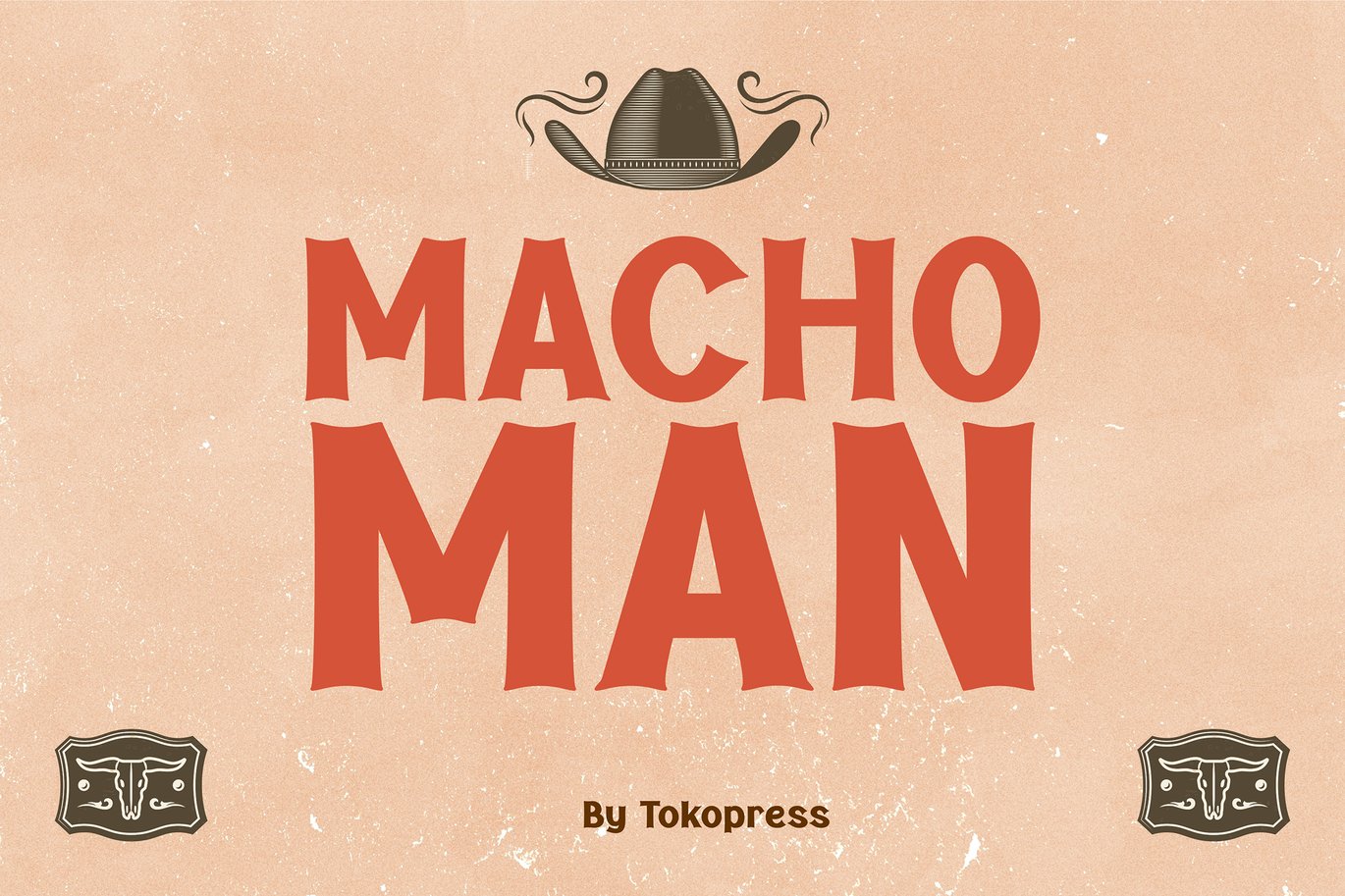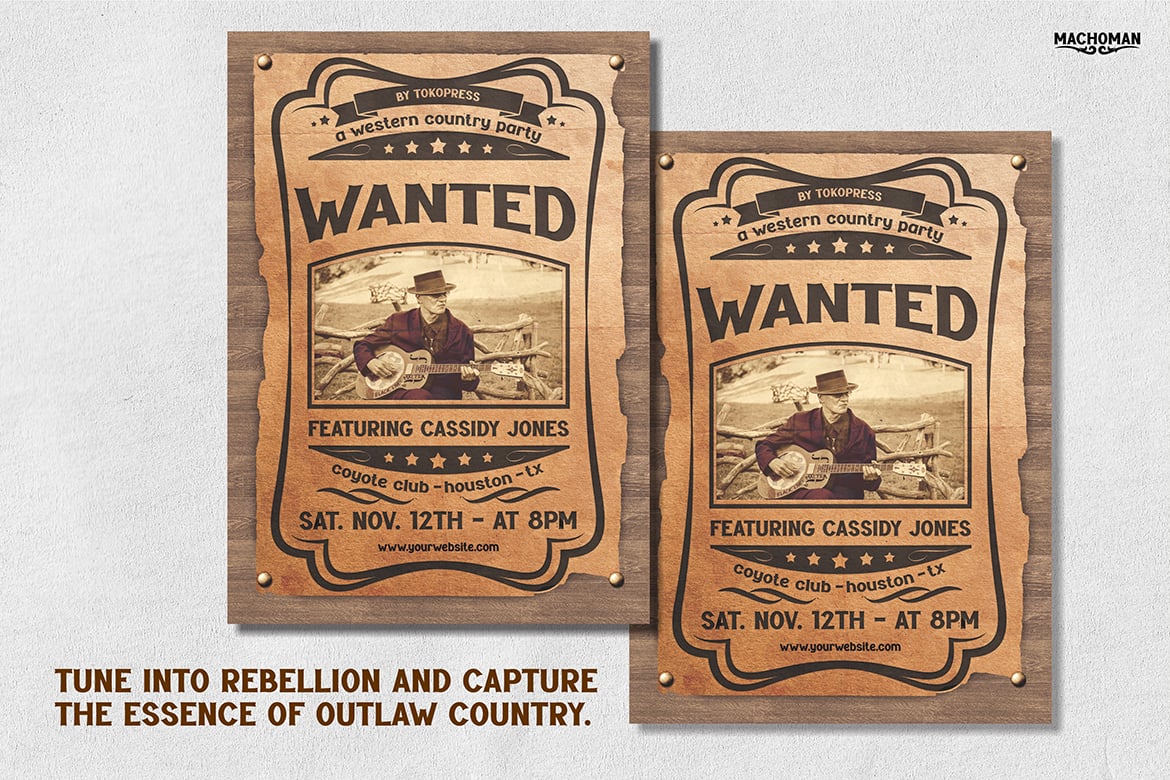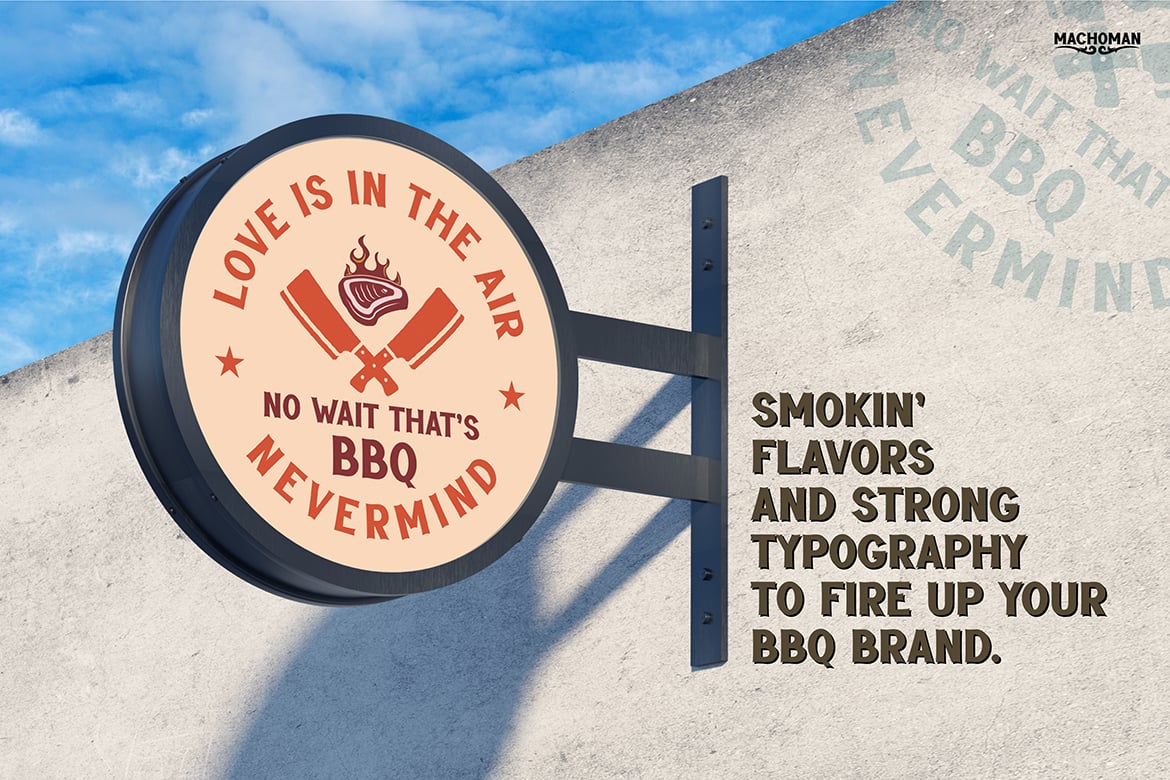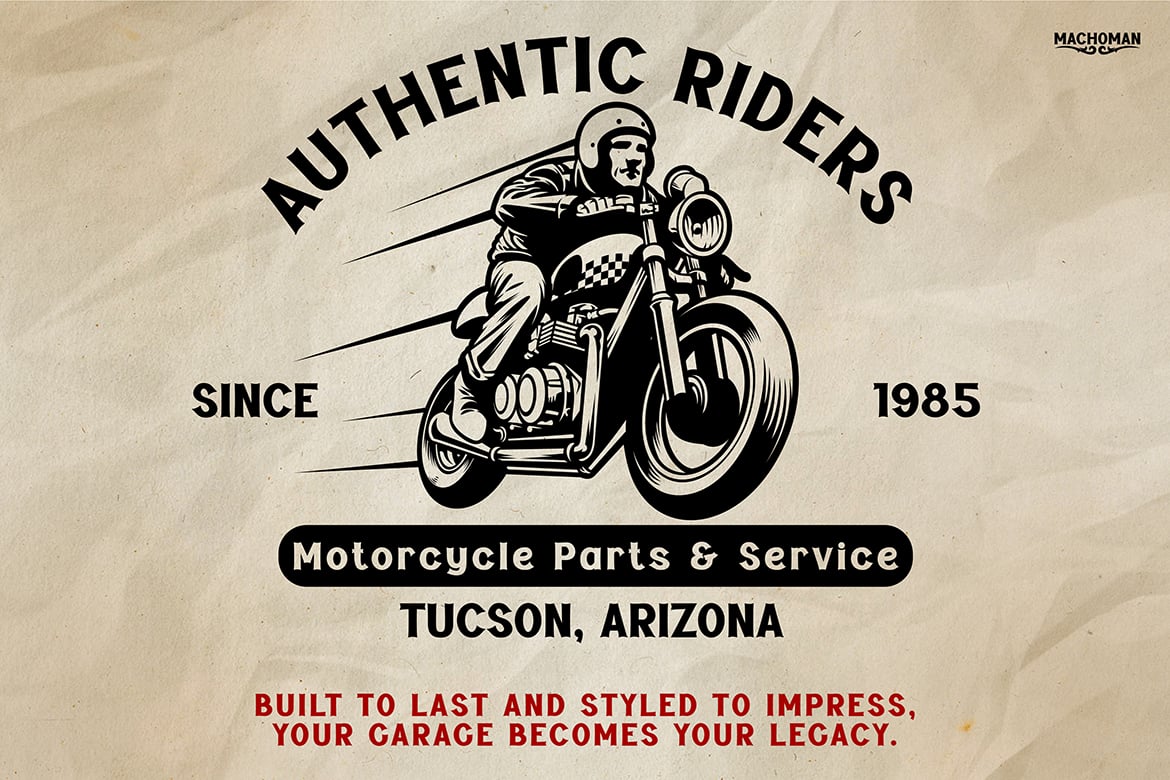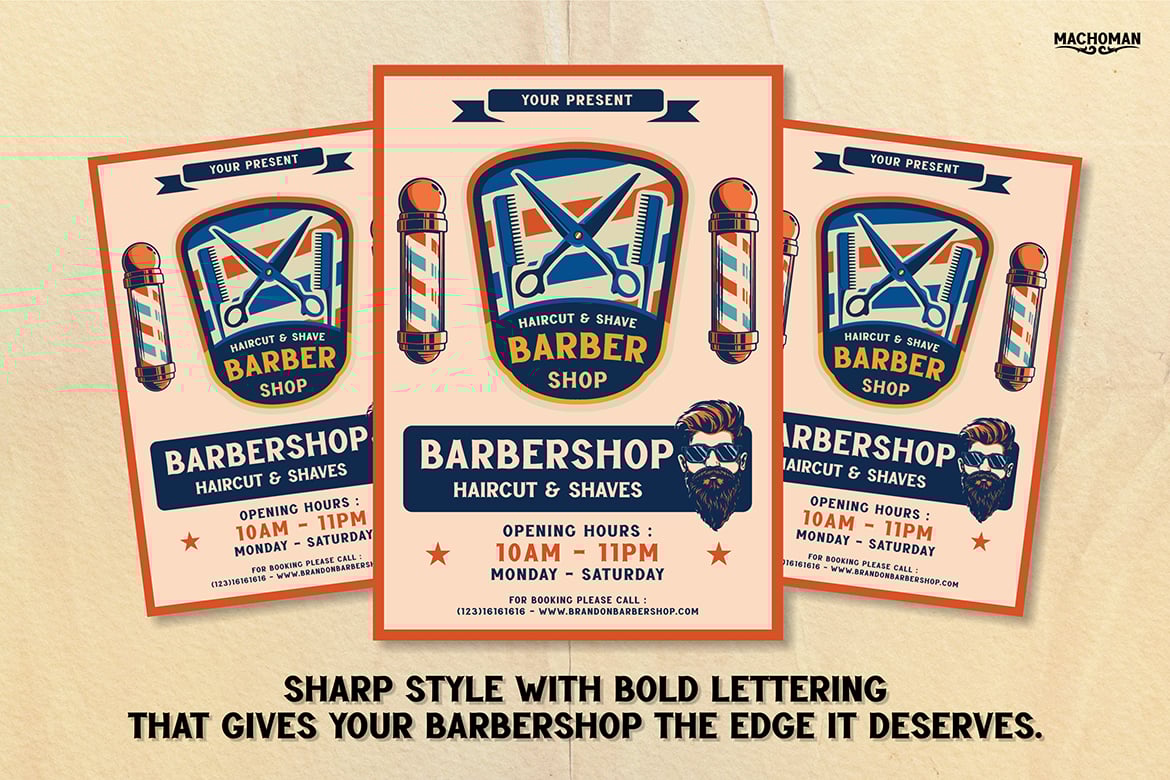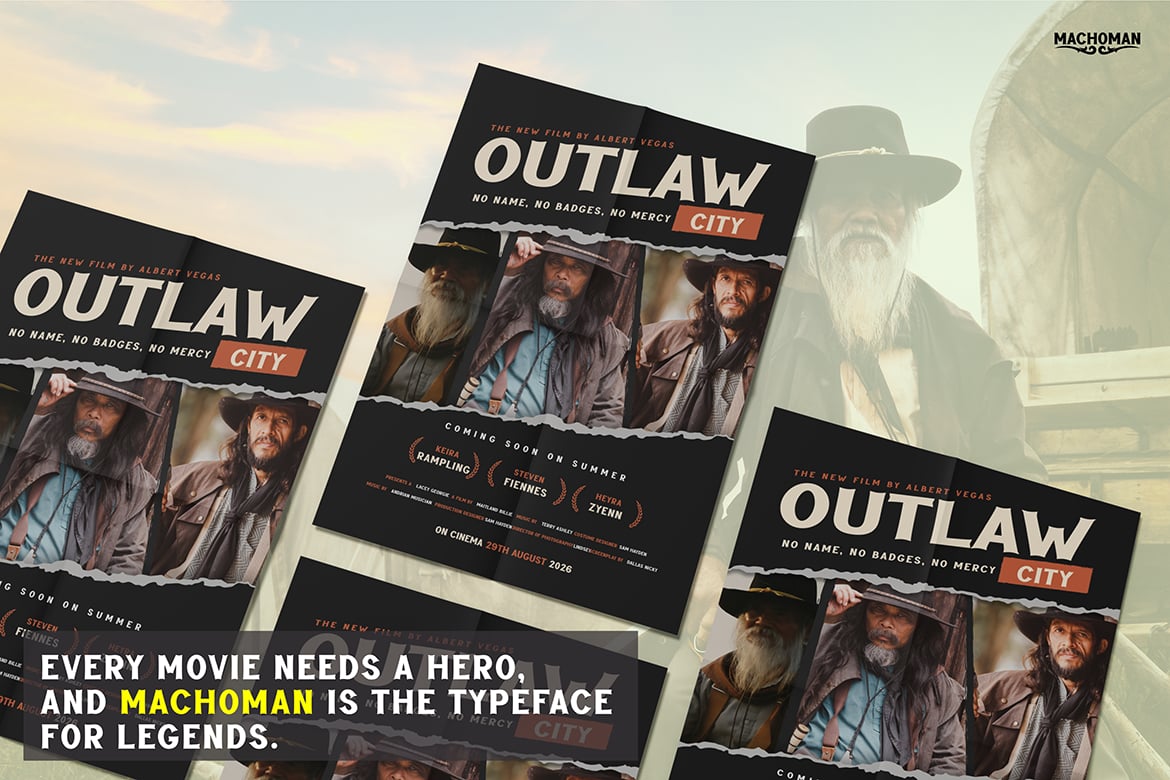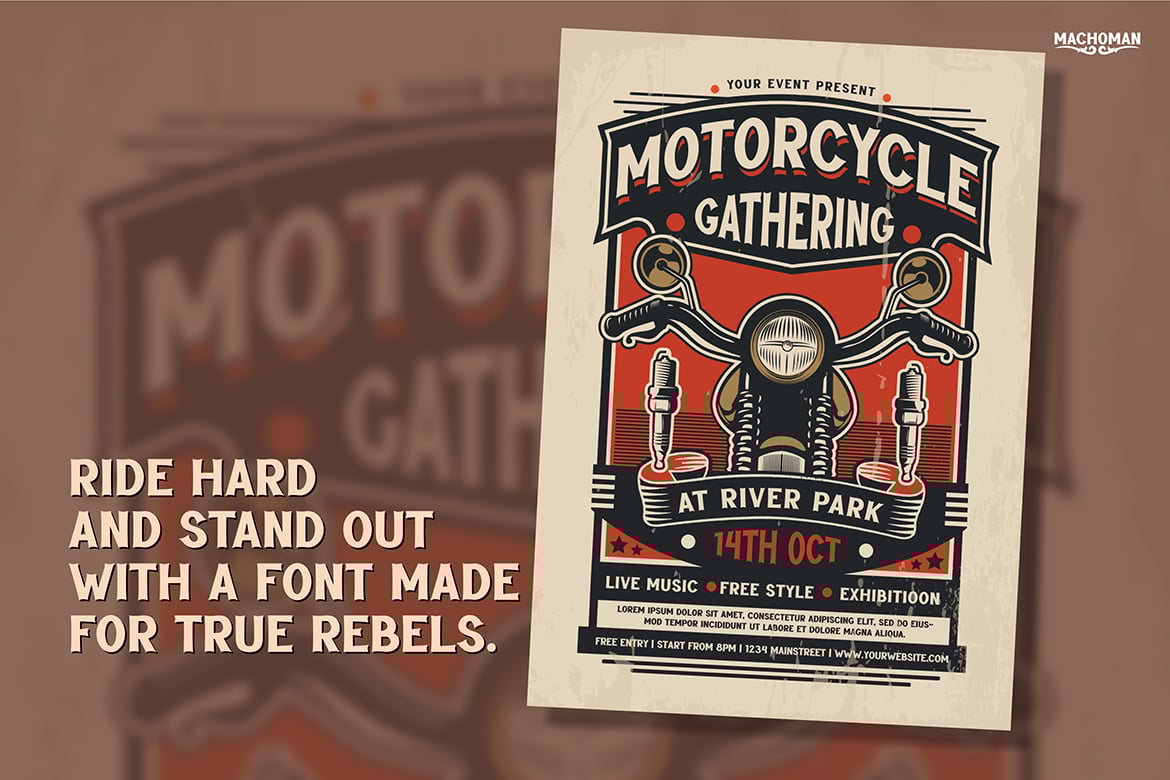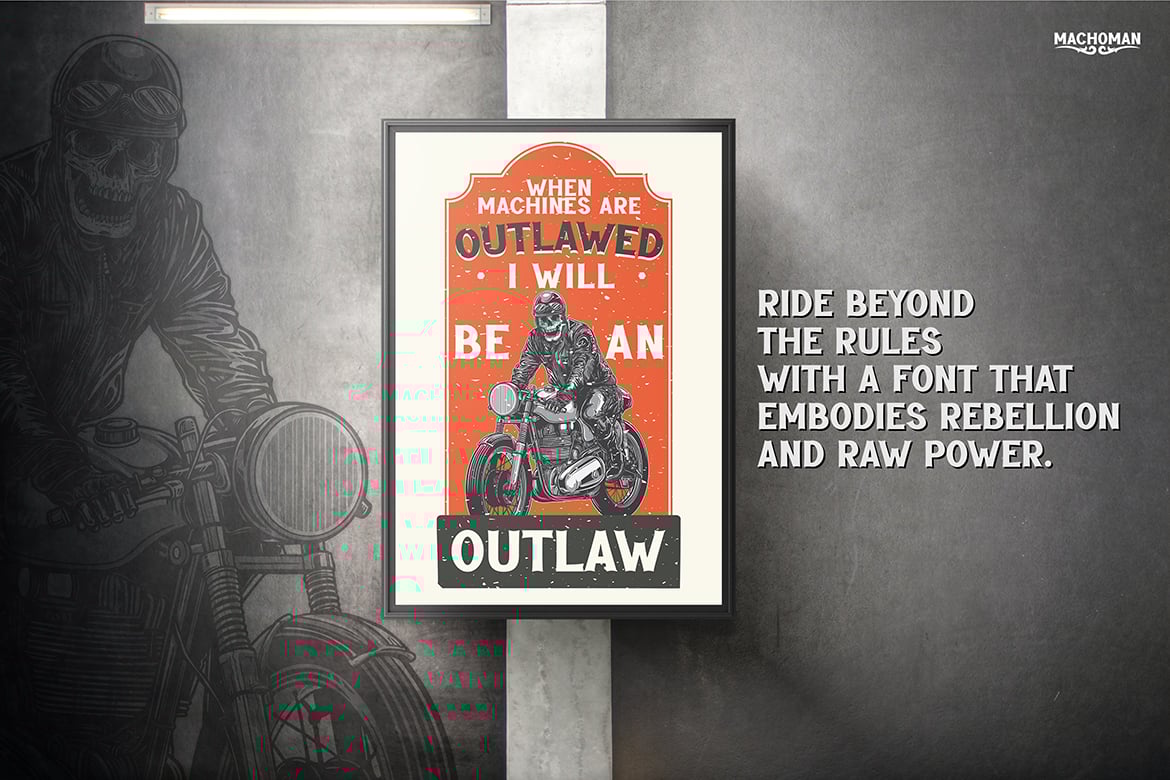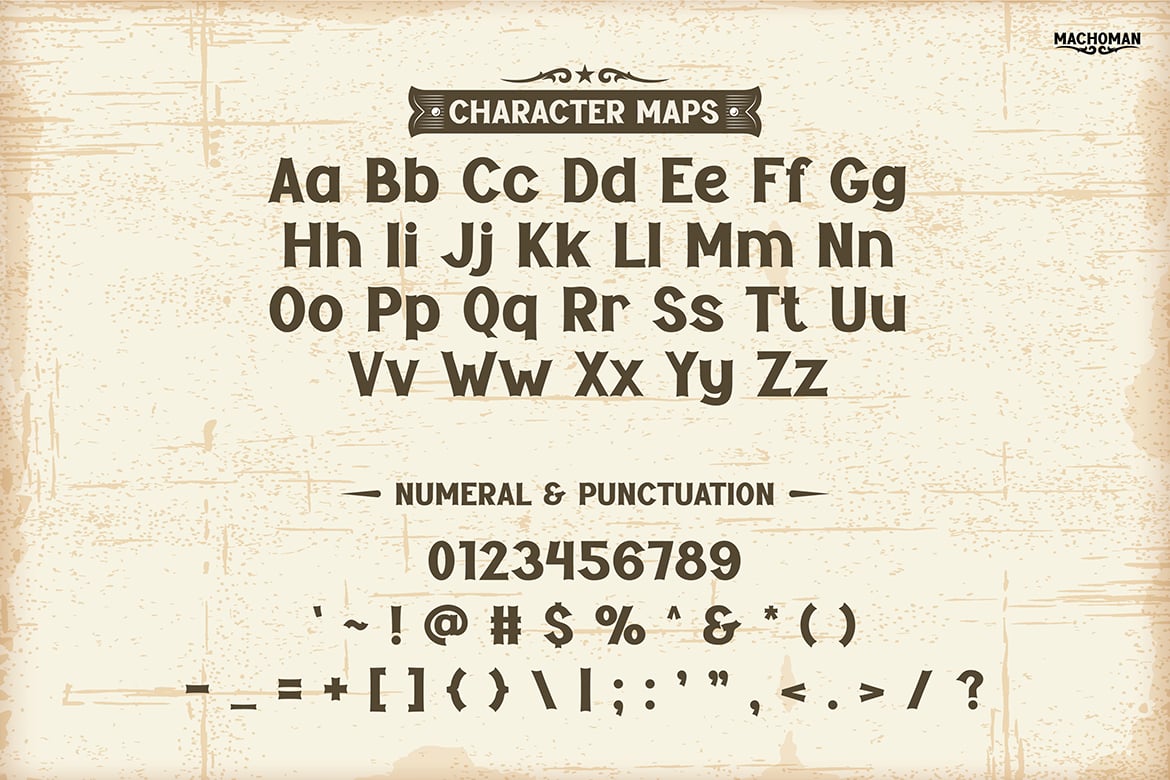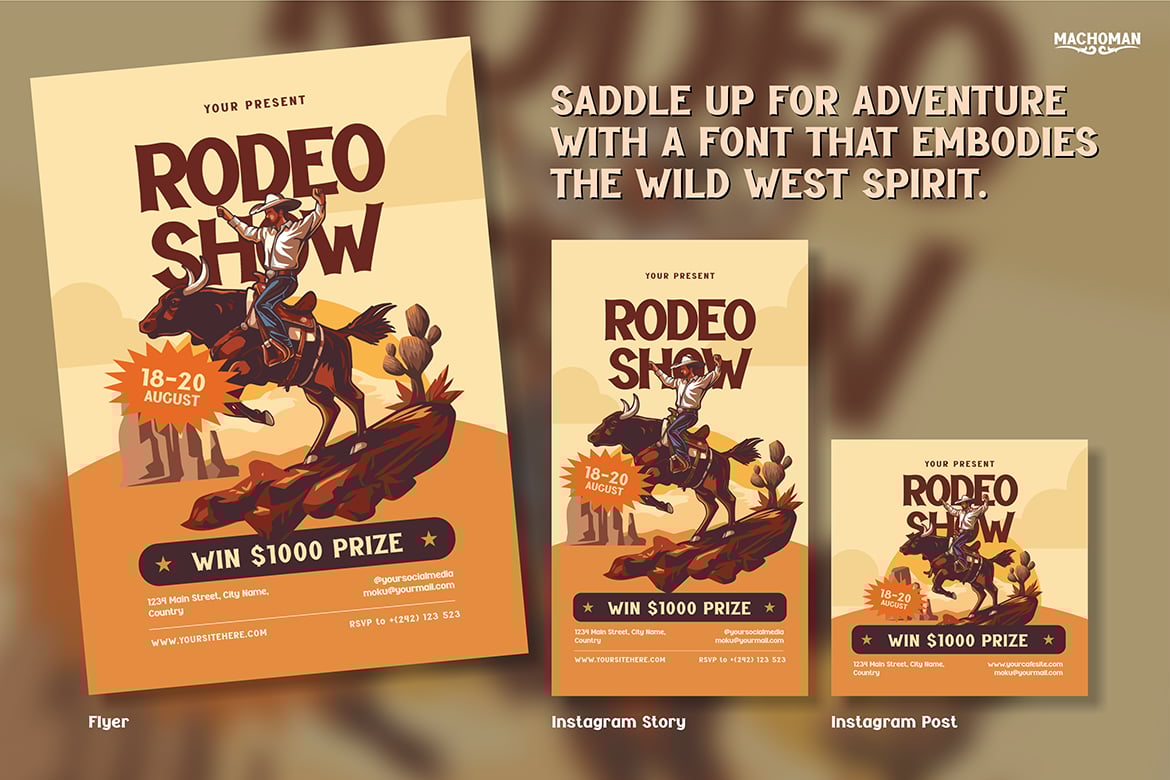
Retro Font – Machoman
Machoman – Adventure in Every Bold Stroke
Introducing Machoman, a retro-inspired font that embodies the spirit of adventure and masculinity!
Drawing from classic styles, Machoman brings boldness, action, and strength to your creative projects.
Whether for posters, branding, or packaging, this font stands out with its daring and dynamic feel. Perfect for those who want to express courage and an adventurous spirit in every design.
Let Machoman be your go-to choice for powerful, masculine visuals!